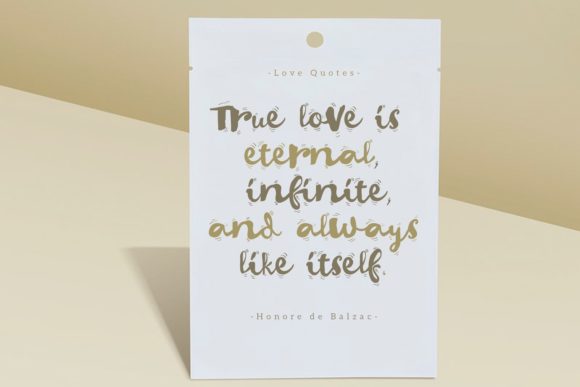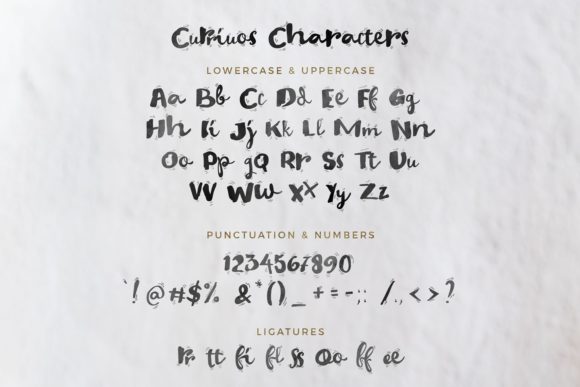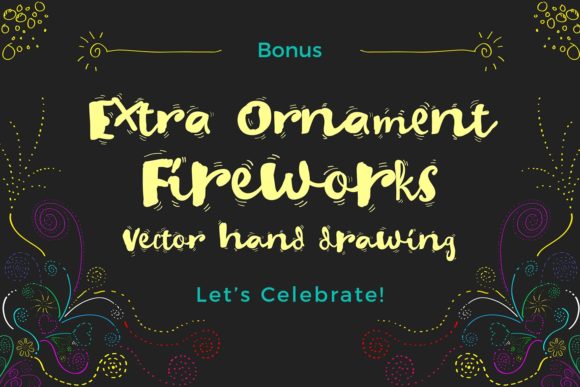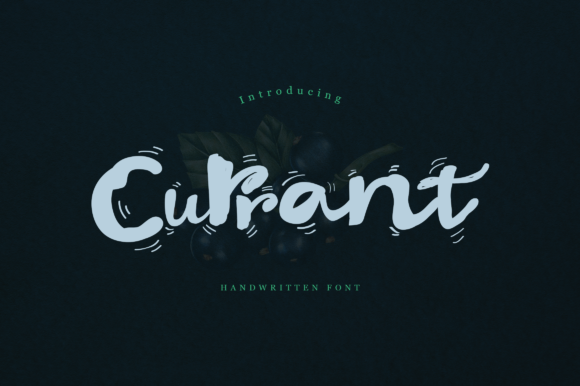
Currant Font: The Sweet and Unique Handwritten Font for Your Creative Projects
Are you a designer, crafter, or DIY enthusiast looking for a font that can add a personal touch to your creative projects? Look no further than Currant Font, a sweet and unique handwritten font that is sure to impress. With its natural style and versatility, Currant Font is incredibly fitting to a large pool of designs, and the only limit is your imagination!
What is Currant Font?
Currant Font is a beautifully crafted handwritten font that exudes warmth and personality. Its unique and sweet style makes it perfect for a wide range of creative projects, from handmade crafts and DIY tutorials to branding and marketing materials. Whether you’re looking to add a personal touch to your work or create a distinctive brand identity, Currant Font is an excellent choice.
Key Features of Currant Font
- Handwritten style: Currant Font has a natural, handwritten style that gives it a personal and unique feel.
- Versatility: Currant Font is incredibly versatile and can be used in a wide range of creative projects, from crafts and DIY tutorials to branding and marketing materials.
- Ease of use: Currant Font is easy to read and use, making it perfect for designers and crafters of all skill levels.
- Unique and sweet style: Currant Font has a distinctive and charming style that sets it apart from other fonts.
Uses for Currant Font
Currant Font is perfect for a wide range of creative projects, including:
- Handmade crafts: Use Currant Font to add a personal touch to your handmade crafts, such as knitting patterns, sewing projects, and paper crafts.
- DIY tutorials: Add a personal touch to your DIY tutorials and instructions with Currant Font.
- Branding and marketing: Use Currant Font to create a distinctive brand identity and add a personal touch to your marketing materials.
- Stationery and cards: Use Currant Font to create beautiful and unique stationery and cards.
Tips for Using Currant Font
Here are some tips for using Currant Font in your creative projects:
- Experiment with different colors: Currant Font looks great in a variety of colors, so don’t be afraid to experiment and find the perfect color for your project.
- Mix and match with other fonts: Currant Font pairs well with other fonts, so try mixing and matching it with different fonts to create a unique look.
- Use it for headings and titles: Currant Font is perfect for headings and titles, and can add a touch of personality to your project.
| Font Name | Currant Font |
| Author | Unicode Studio |
Currant Font is a sweet and unique handwritten font that is perfect for designers, crafters, and DIY enthusiasts. With its natural style and versatility, Currant Font is incredibly fitting to a large pool of designs, and the only limit is your imagination! Whether you’re looking to add a personal touch to your handmade crafts, create a distinctive brand identity, or simply add a touch of personality to your creative projects, Currant Font is an excellent choice.